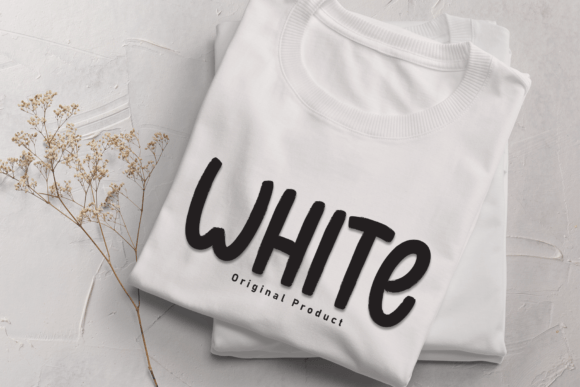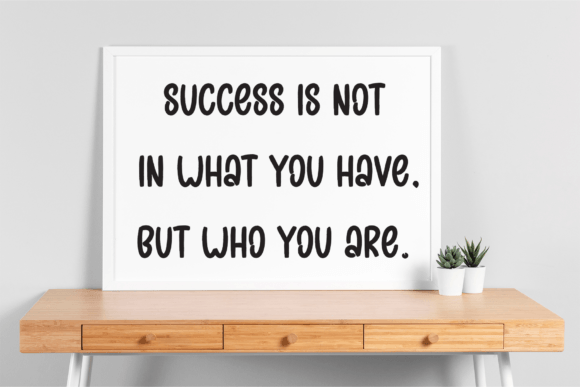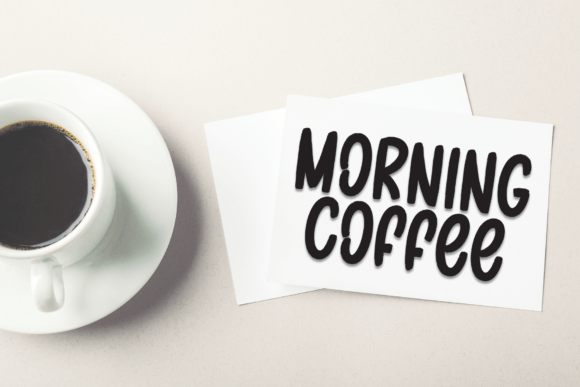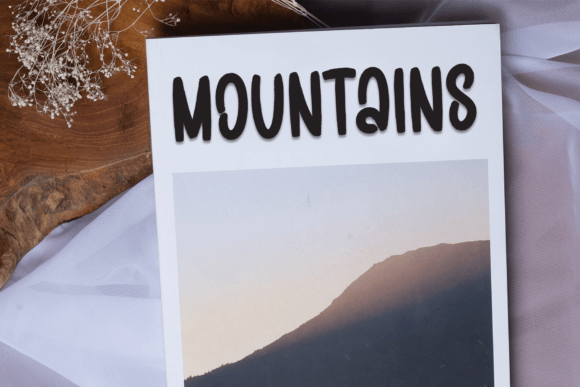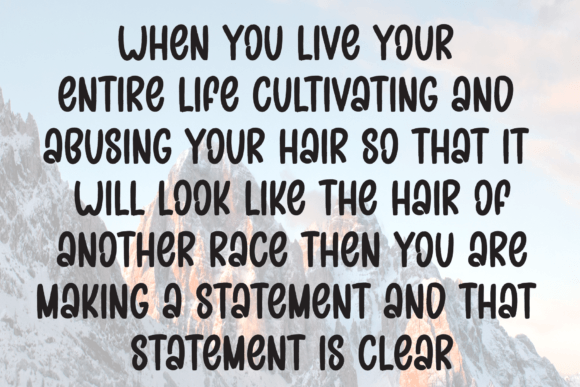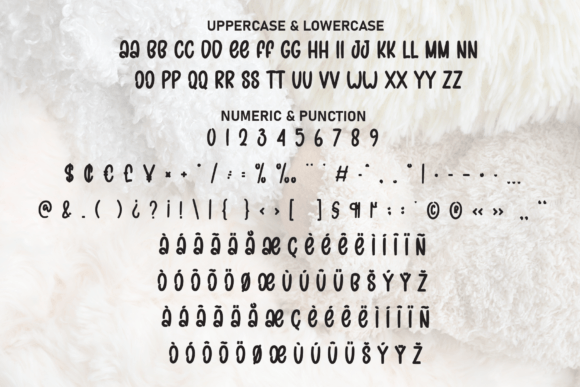
The Cozy Charm of Furry Clothes Font: A Designer’s New Best Friend
I’ll never forget the time I was working on a whimsical craft project, pouring my heart into a handmade card for a friend’s birthday. I had the perfect design in mind – colorful, playful, and full of personality. But, as I sat in front of my computer, I realized I was stuck. The font I was using just wasn’t cutting it; it was too formal, too stiff, and totally not what I had envisioned. That’s when I stumbled upon Furry Clothes Font, and let me tell you, it was love at first sight! ✨
An Honest Review of Furry Clothes Font
So, what makes Furry Clothes Font so special? Here’s the lowdown:
- ✅ Playful yet elegant: Furry Clothes Font strikes the perfect balance between playfulness and sophistication. Its handwritten charm makes it perfect for a wide range of projects, from fun party invitations to heartfelt letters.
- ✅ Soft and cozy vibe: The font’s flowing letters and soft texture give off a warm and fuzzy feeling – exactly what you want for designs that need a personal touch.
- ✅ Versatile: Whether you’re working on digital projects or printing out physical copies, Furry Clothes Font looks amazing in various sizes and resolutions.
Of course, no font is perfect, and Furry Clothes Font has a few minor quirks:
- ⚠️ Legibility at small sizes: While the font looks beautiful at larger sizes, it can get a bit tricky to read when scaled down. Keep this in mind when choosing font sizes for your designs.
- 🤔 Limited formal use: Given its playful nature, Furry Clothes Font might not be the best choice for super formal projects or professional documents.
One of the best things about Furry Clothes Font is its support for OpenType features and glyphs. These features allow you to customize your text with stylistic alternates, ligatures, and more. Here’s a quick guide on how to access them:
The Story Behind Furry Clothes Font
Furry Clothes Font was created with the goal of bringing warmth and playfulness to designs. The designer, inspired by childhood memories of cozy sweaters and friendly letters, aimed to craft a font that felt both personal and approachable. And, honestly, I think they totally nailed it! 😊
Q: What makes Furry Clothes Font so special?
A: Furry Clothes Font stands out for its playful yet elegant handwritten style, soft texture, and warm vibe. It’s perfect for designs that need a personal touch.
Q: Is Furry Clothes Font difficult to read?
A: While Furry Clothes Font is generally easy to read, it can get a bit tricky at very small sizes. Choose a suitable font size to ensure your text remains legible.